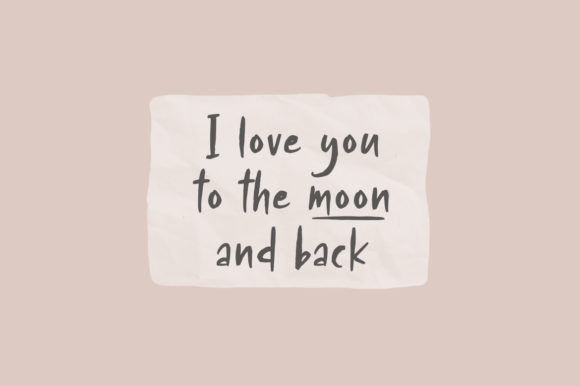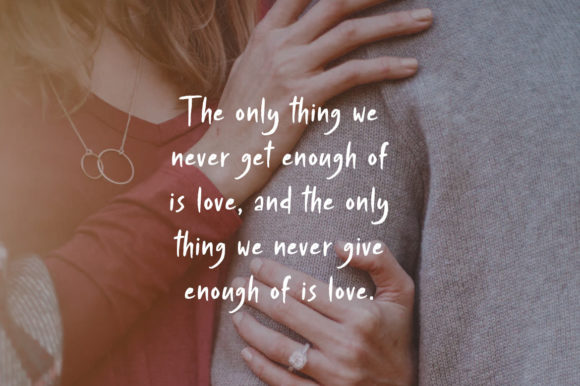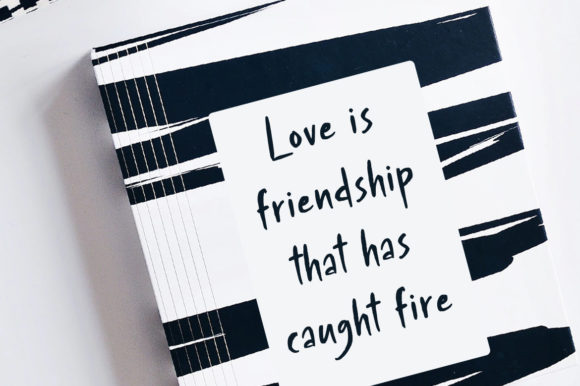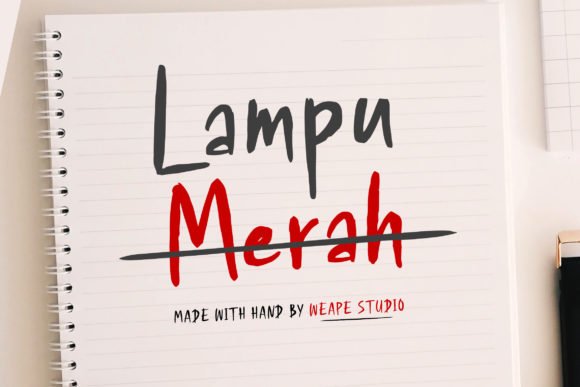
Introduction to Lampu Merah Font
Lampu Merah is a whimsical and genuine handwritten font.
Expertly designed to make your creation look out of this world, this font will look gorgeous on a variety of ideas .
Key Features of Lampu Merah Font
Why Choose Lampu Merah Font?
Lampu Merah Font offers exceptional quality and versatility, making it a valuable addition to your design toolkit. Whether you’re creating for personal projects or commercial use, Lampu Merah Font delivers professional results.